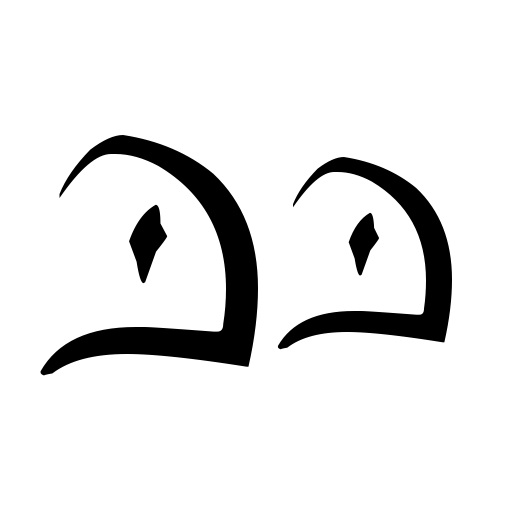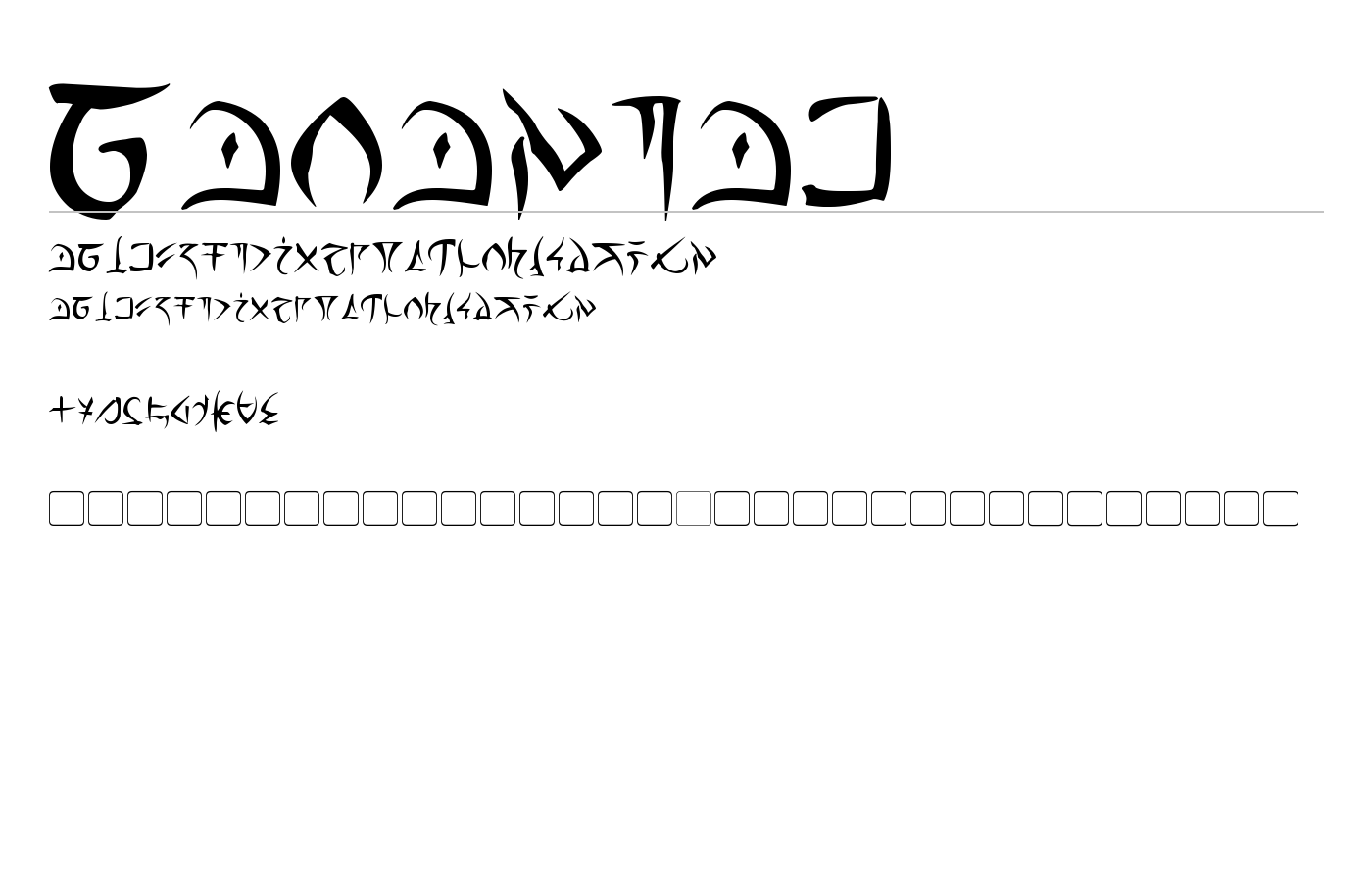
Barazhad is a highly stylized, decorative serif font with sharp, calligraphic strokes that convey a mystical and ancient feel. Its unique letterforms feature bold, sweeping curves and intricate details, making it ideal for fantasy-themed designs, book covers, or branding that requires a strong, dramatic presence. This font works best in headlines or logos where its artistic flair can shine without sacrificing legibility.
Barazhad Font
About Barazhad Font
| Designer | Neale Davidson |